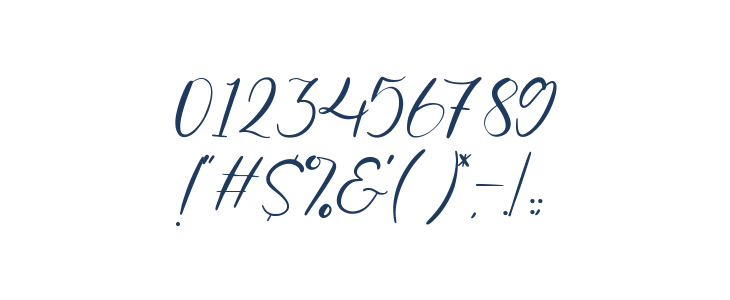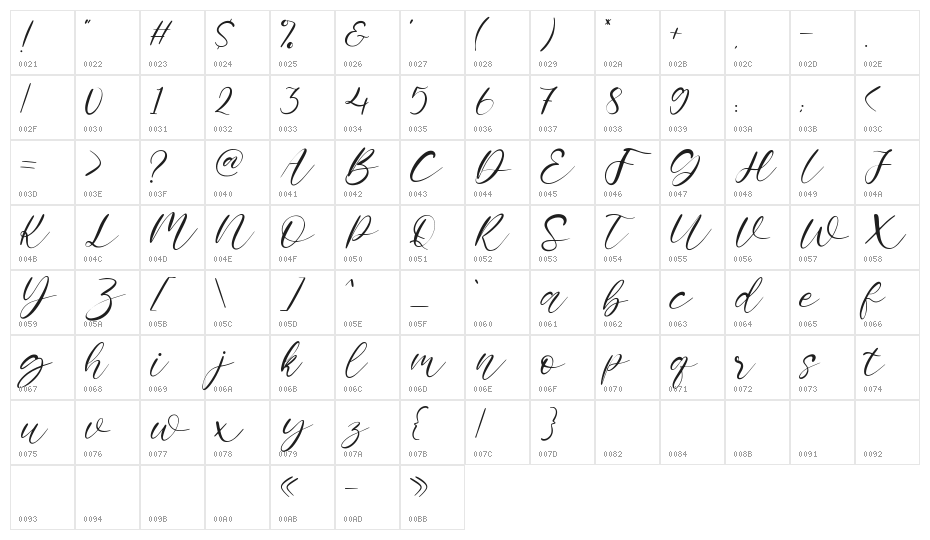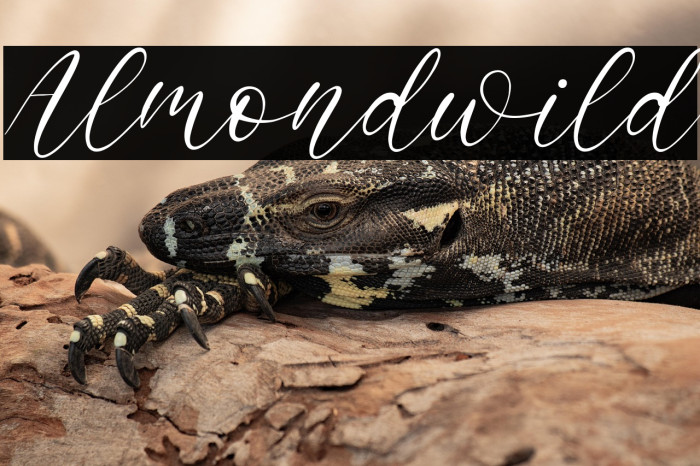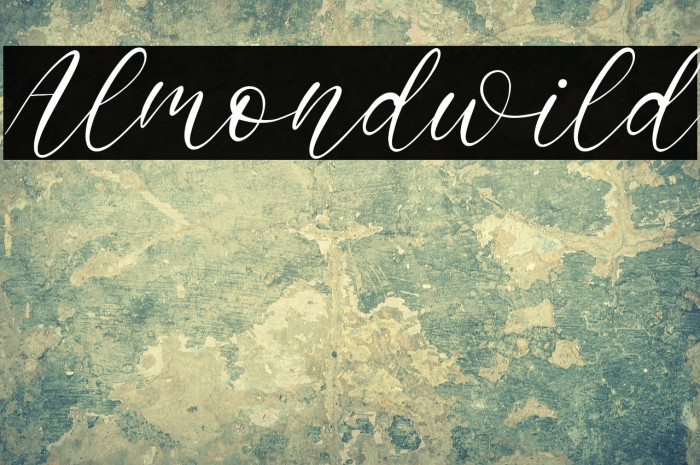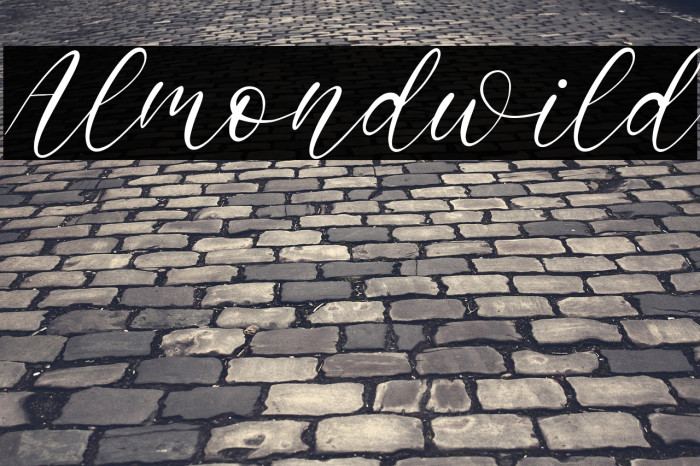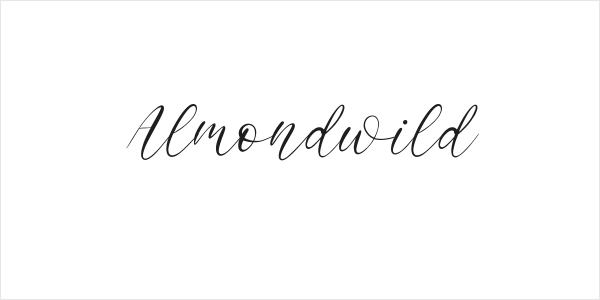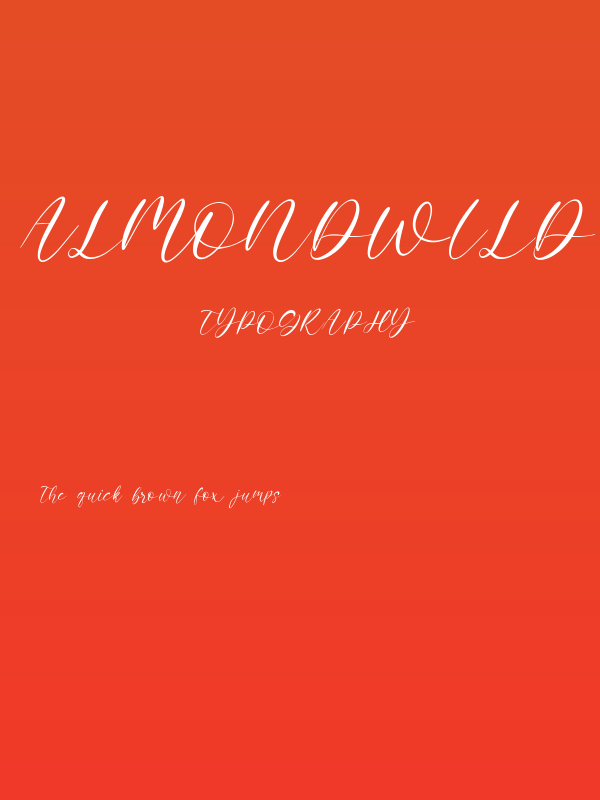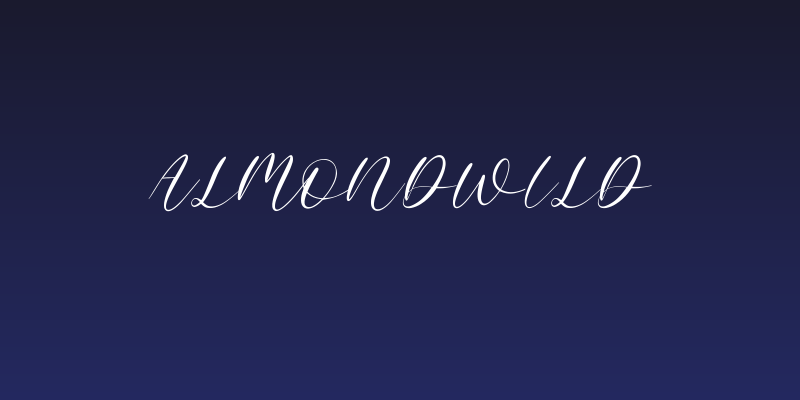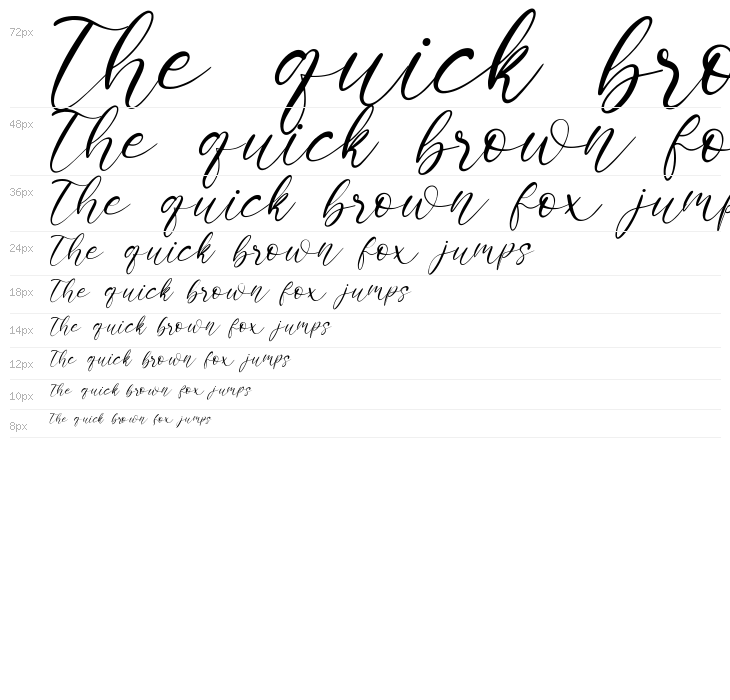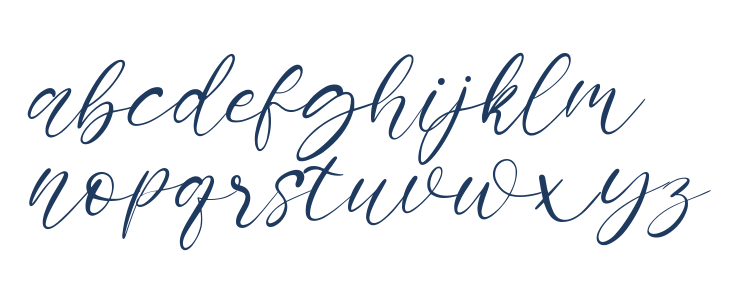
Almondwild Font
Almondwild Description
This font exudes a lively and elegant script style, characterized by its fluid, cursive strokes that mimic natural handwriting. The letters are interconnected, creating a seamless flow that enhances its aesthetic appeal. The uppercase letters are slightly more ornate, with flourishes that add a touch of sophistication. The lowercase letters maintain a consistent rhythm, contributing to the font's overall harmony. The numerals and special characters are crafted with the same attention to detail, ensuring uniformity across all glyphs. This font's playful yet refined nature makes it versatile for various design applications.
| Overall Style | Elegant, Playful |
| Proposed Projects | Ideal for wedding invitations, greeting cards, branding projects, and elegant packaging designs. |